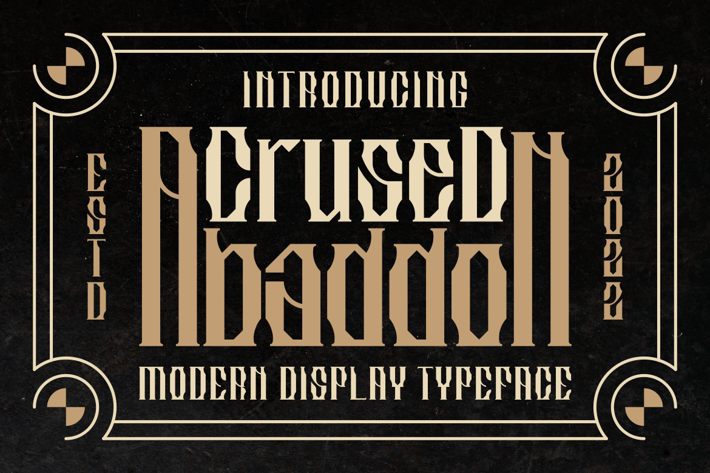
Crused Abaddon Font
Introducing our new product Crused Abaddon Font - Modern Font
Crused Abaddon Font - Modern Font is a bold and authentic display font. The font is suitable for any branding project like logo, t-shirt printing, esport, and many more. outstanding in a wide range of contexts.